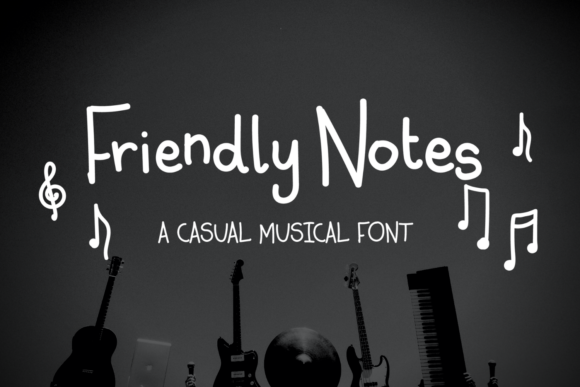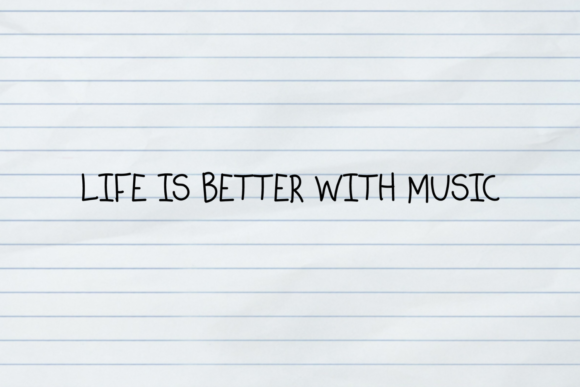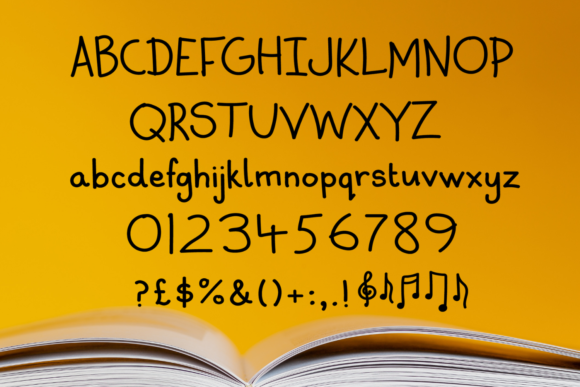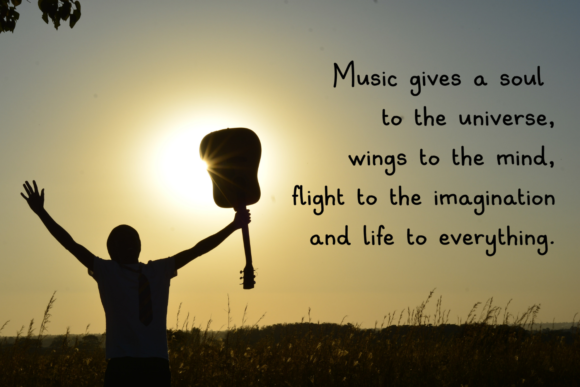
Friendly Notes Font
About Friendly Notes Font
Friendly Notes is a sweet and friendly handwritten font. Its natural and unique style makes it incredibly fitting to a large pool of designs. The only limit is your imagination!